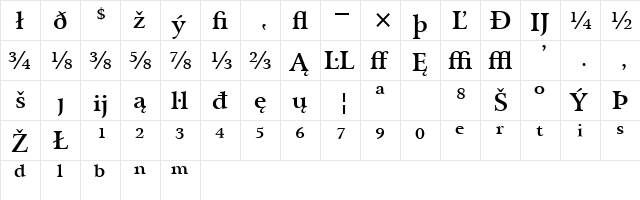
Arrus Ext BT Bold Extension
Design Context for Arrus Ext BT Typeface
Arrus Ext BT takes a measured approach to typography — its balanced proportions and neutral character make it a reliable workhorse for both digital and print work. The heavy weight commands attention and anchors typographic hierarchies.